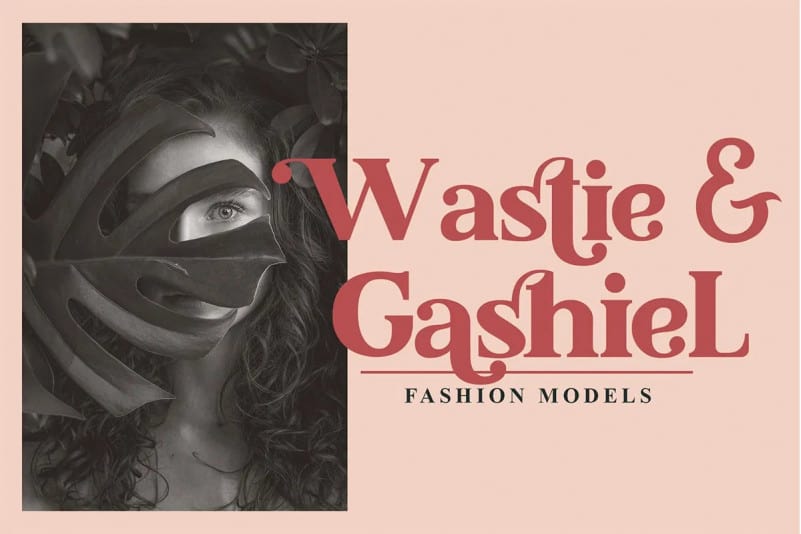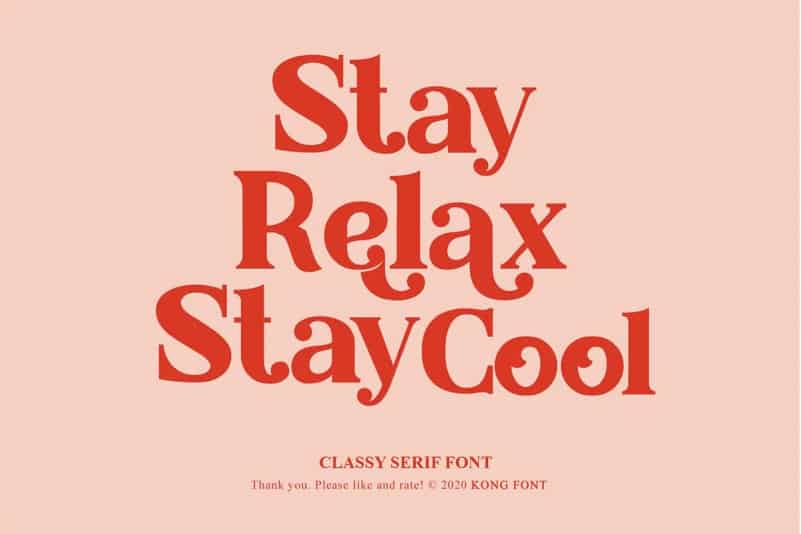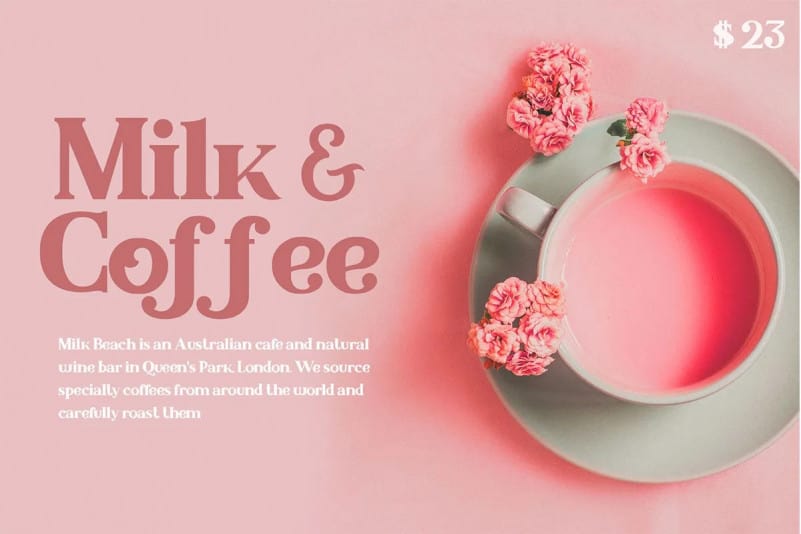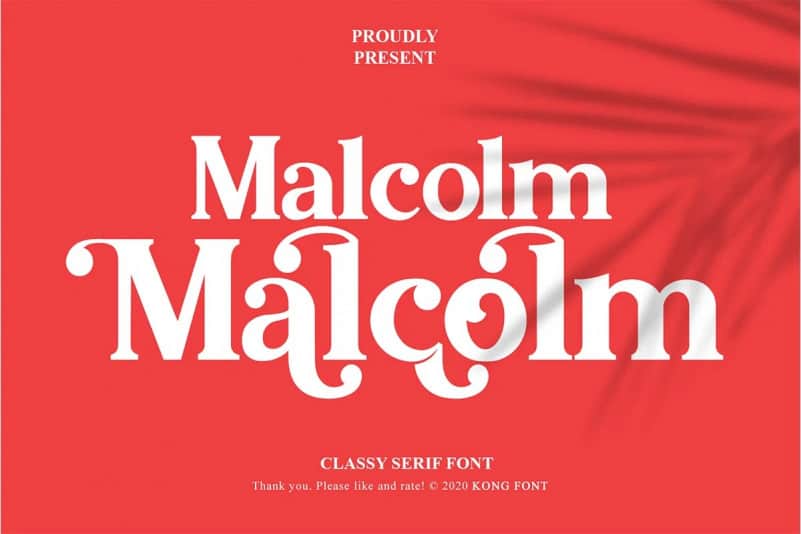
Hello friend. Malcolm Serif Font is a classic and modern serif typeface that contains a bunch of gorgeous ligatures that will make your design, presentation or logo even more stunning and stand out! This font also contain stylish stars that will make your project sparkling and more interesting. Malcolm Serif Font is perfect for styling logos, stationery, wedding event, invitation, quote, social media, websites and so much more!